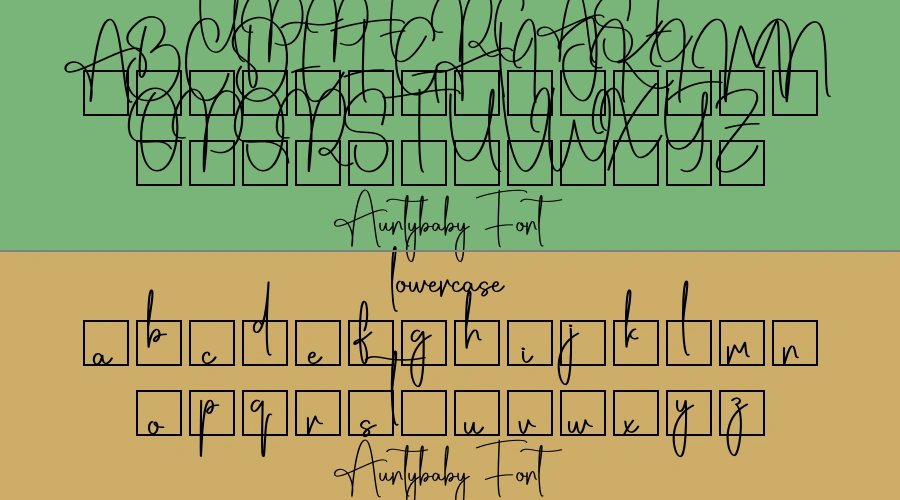
About Auntybaby Font
Auntybaby Font stands out for its distinctive combination of fluid connections and functionality. Ideal for literary works, it provides the longevity and industry recognition that professional projects demand. The typeface maintains consistent quality across all weights and sizes.
Key features include refined impactful forms and practical beginning forms, enhancing typographic expression. In sidebars applications, Auntybaby Font demonstrates exceptional file efficiency. The stroke contrast and industrial acceptance contribute to its distinctive character and professional appeal.